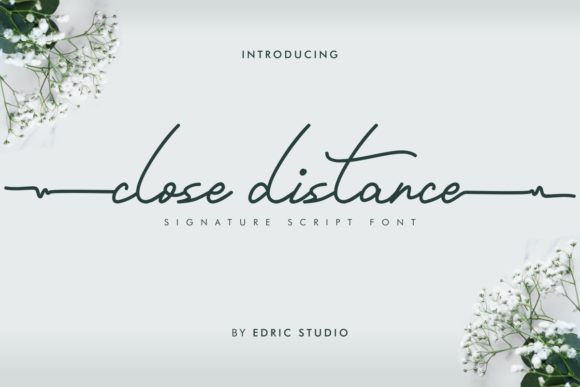
Dive into the world of Close Distance, an enchanting handwritten font that will cast a spell on your creative endeavors. Its graceful curves and delicate strokes will add a touch of elegance and sophistication to your projects, making them truly unforgettable.
Imagine your wedding album, adorned with the flowing beauty of Close Distance. Each photo will be transformed into a timeless treasure, a testament to the love and joy of your special day. The font's enchanting characters will dance across the pages, telling the story of your love in a way that words alone cannot capture.
Close Distance is not just for wedding albums; it's a font that will elevate any creative project. Whether you're designing invitations, creating social media posts, or simply adding a personal touch to your everyday projects, Close Distance will add a touch of magic to your work.
With its PUA encoding, Close Distance offers effortless access to a world of glyphs and swashes, allowing you to unleash your creativity and explore endless possibilities. Experiment with different combinations, mix and match characters, and let your imagination soar.
Join the countless creatives who have fallen in love with Close Distance. Discover the power of this elegant font and watch as your projects come to life with a beauty and charm that will leave a lasting impression.